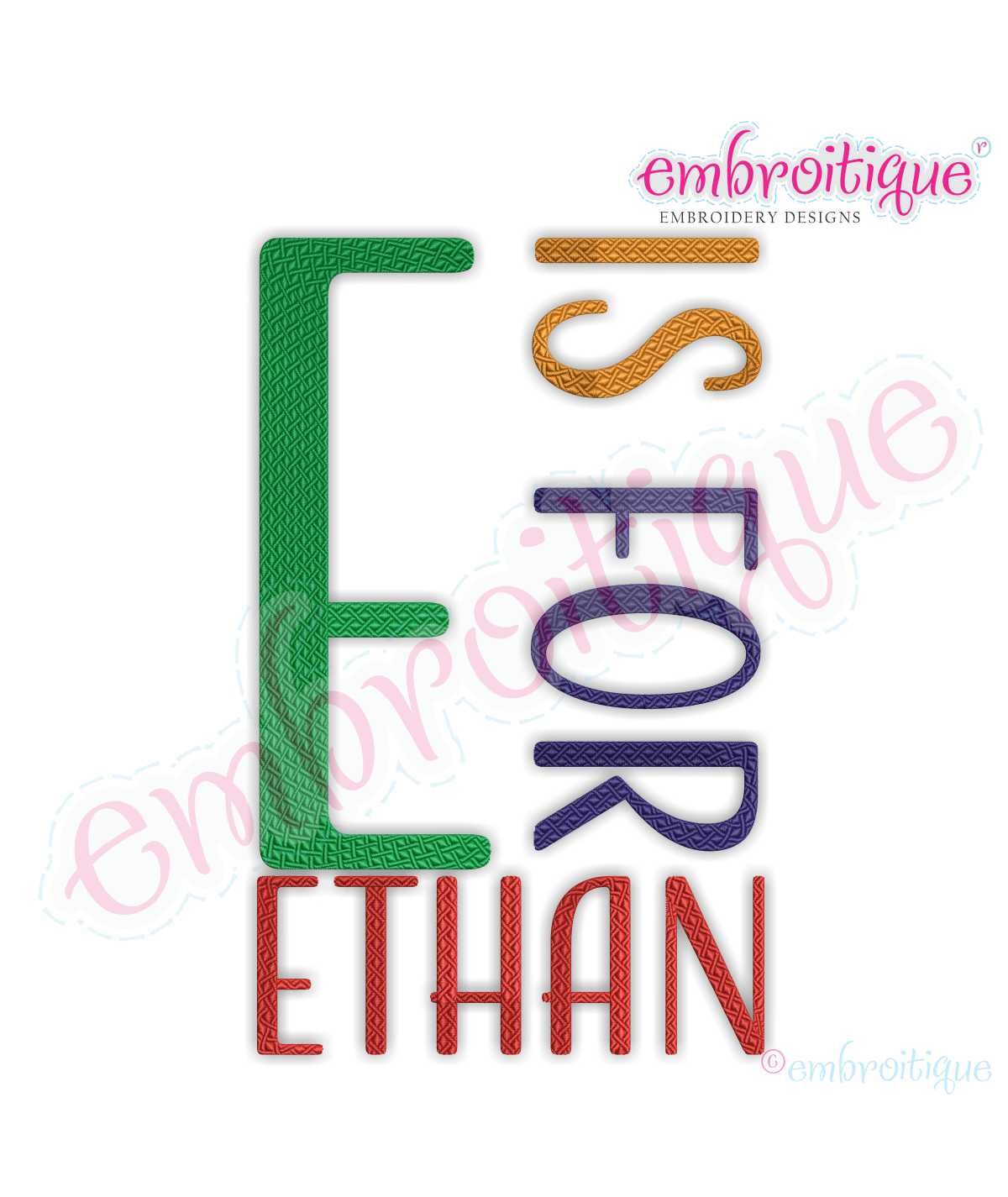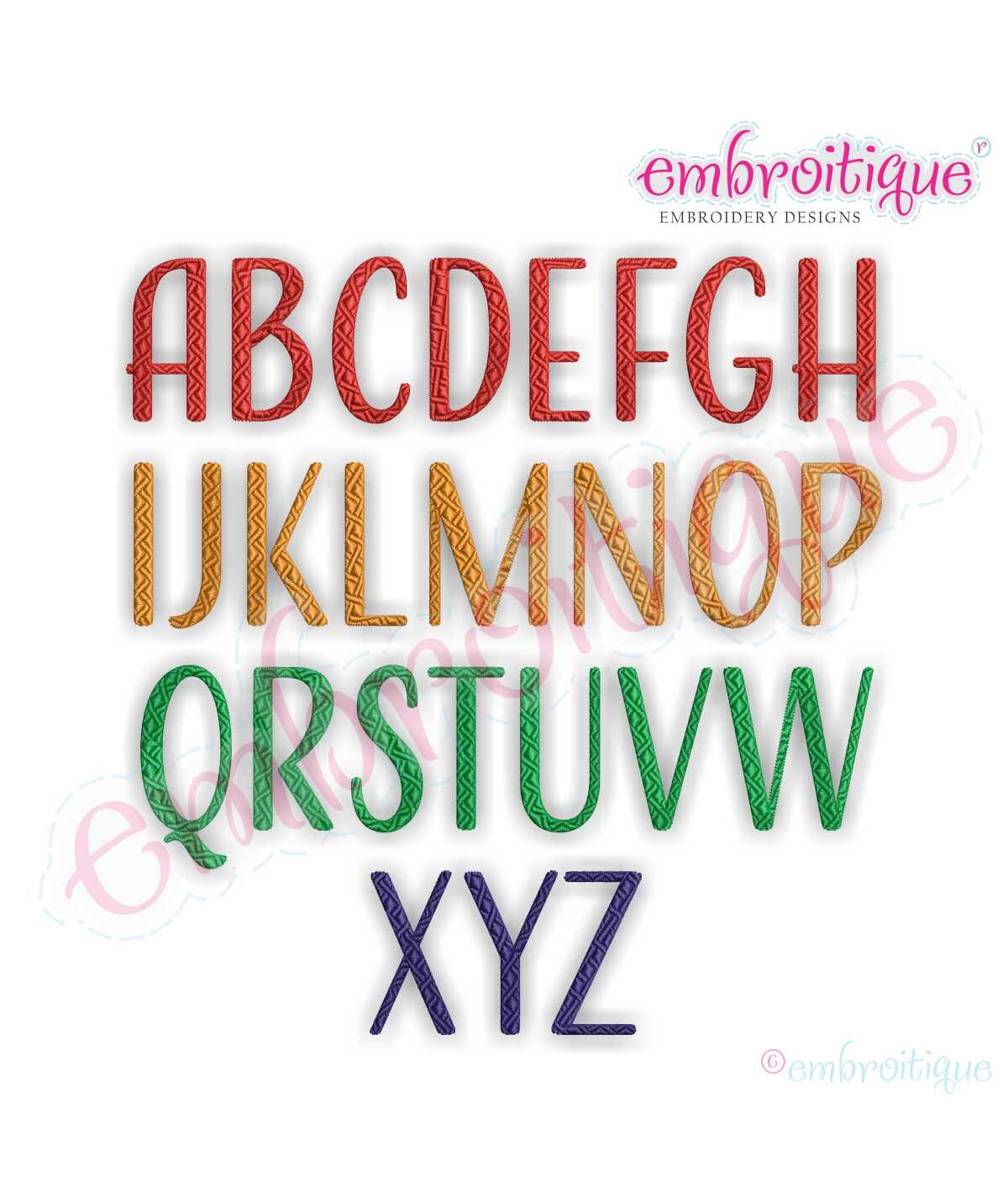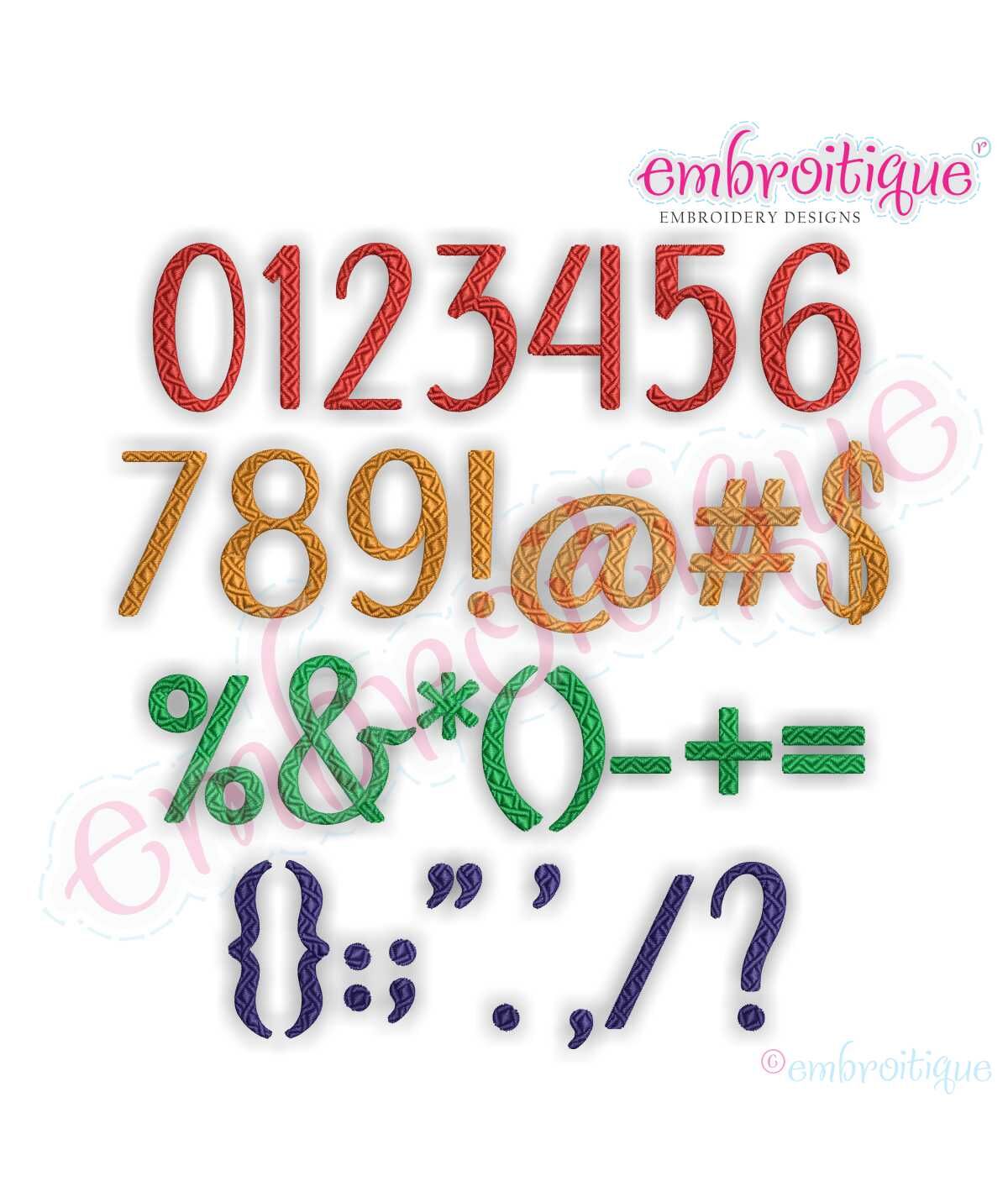
Ethan Monogram Set - Large
We love the versatility of this alphabet, and know that you will too. This works
perfectly for men, women, boys & girls! This is a set that woks beautifully with heaver weight - higher pile fabrics.
Perfect for towels, robes, blankets and more! You will receive A-Z, numbers, and
Stitch Type: Textured woven fill stitch